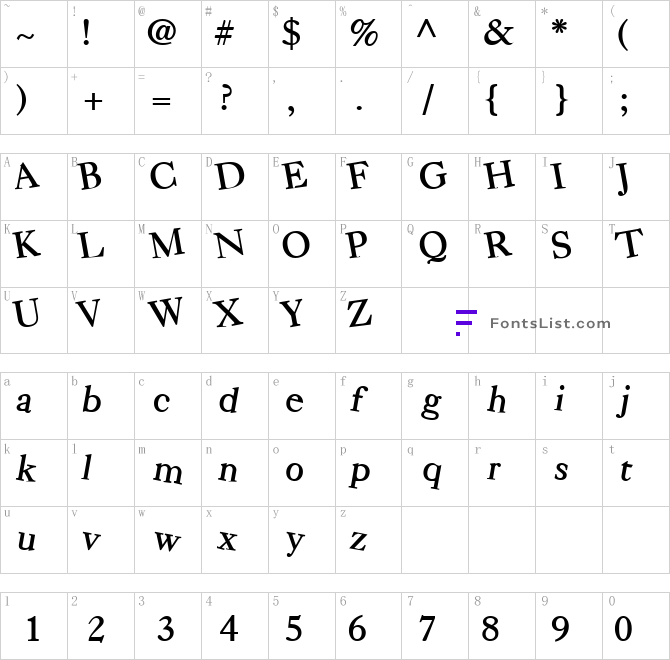
- Font Name:BearMarketGear7
BearMarketGear7-Bold.ttf is a very beautiful artistic font, BearMarketGear7-Bold.ttf is widely used in the design and printing of various books and pictures,BearMarketGear7-Bold.ttf has a strong visual impact,BearMarketGear7-Bold.ttf is a commonly used font in newspapers, magazines and books, and is used in posters, e-commerce Poster design, store design, logo design, font design and other fields.BearMarketGear7-Bold.